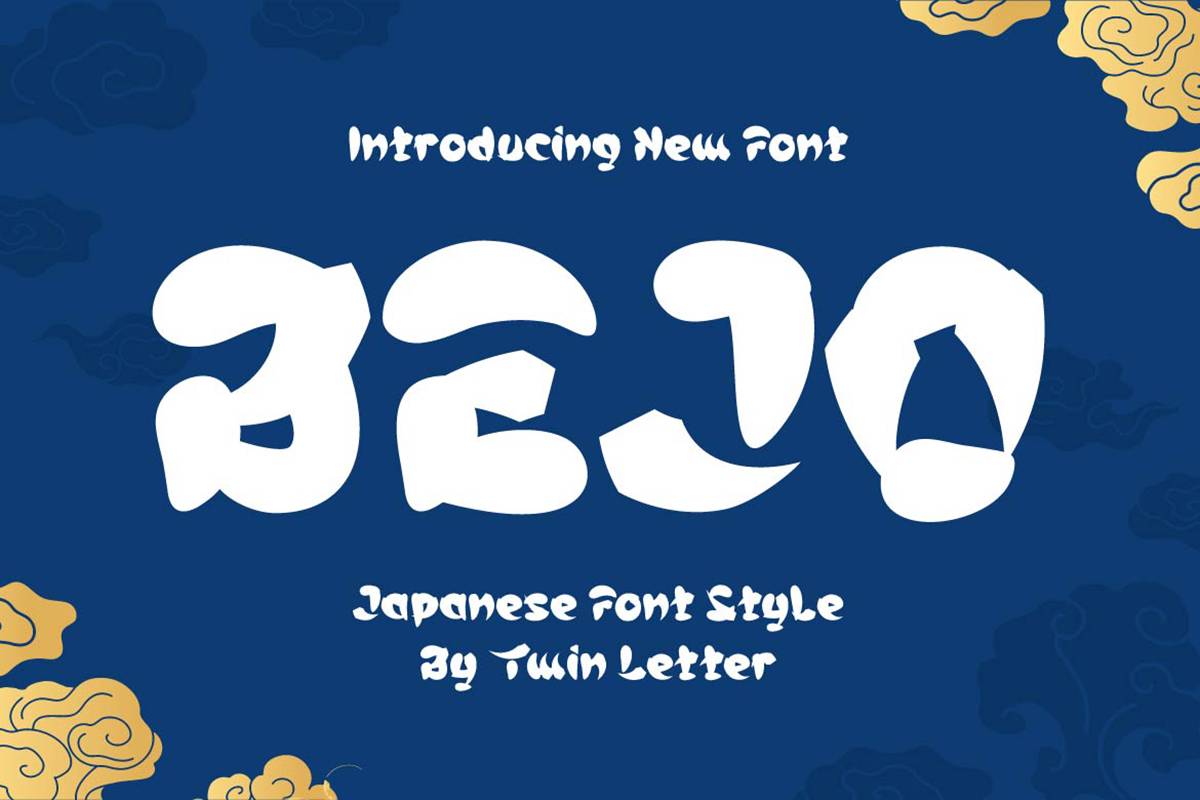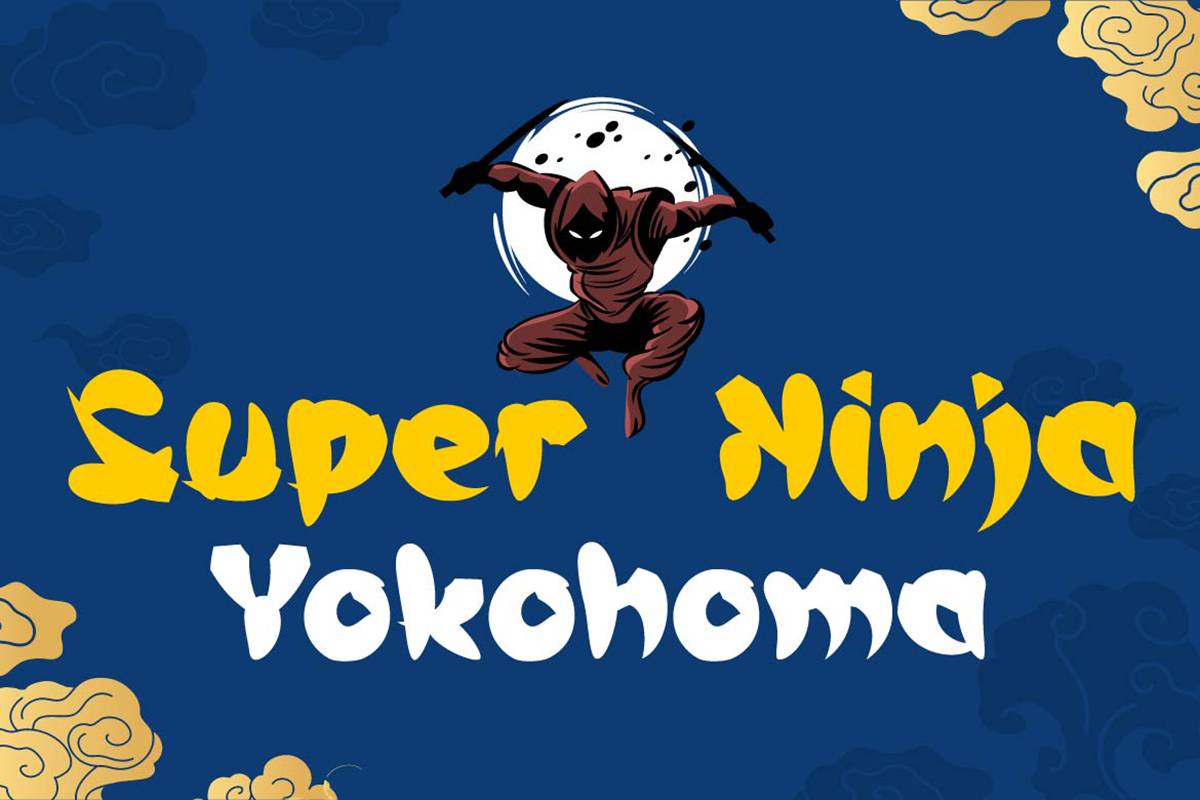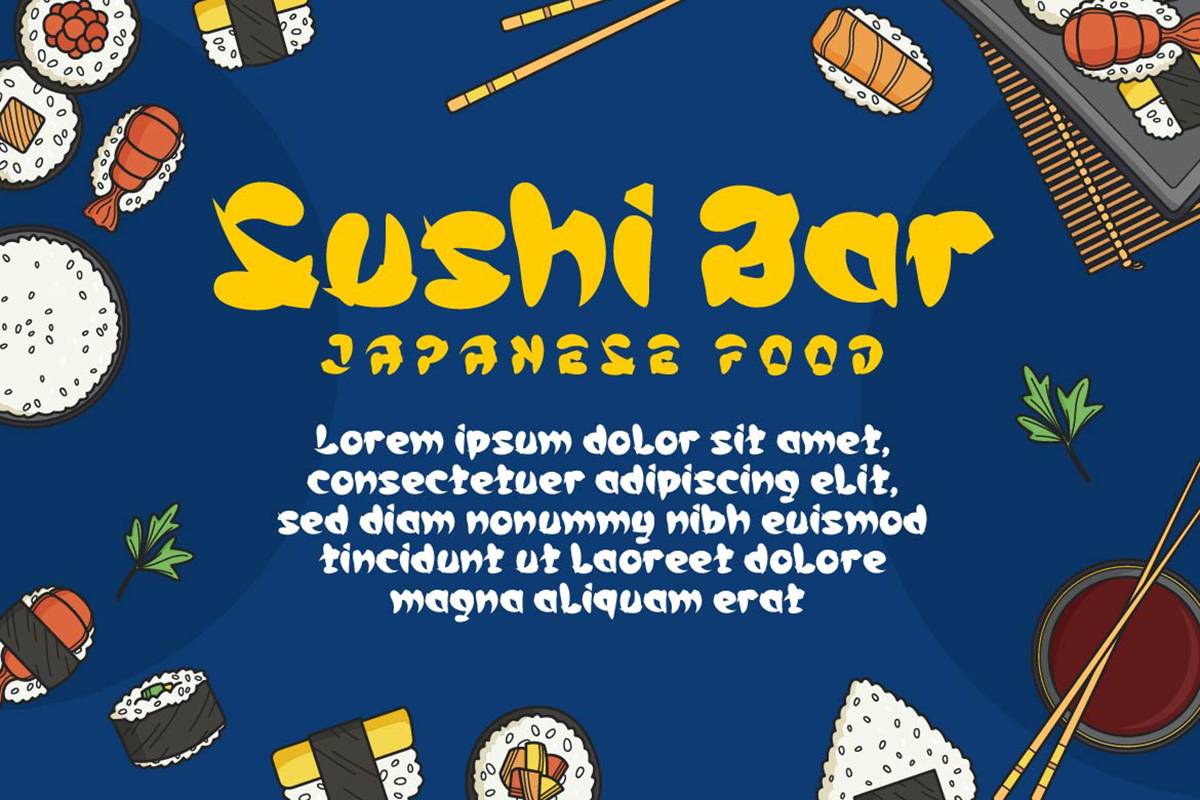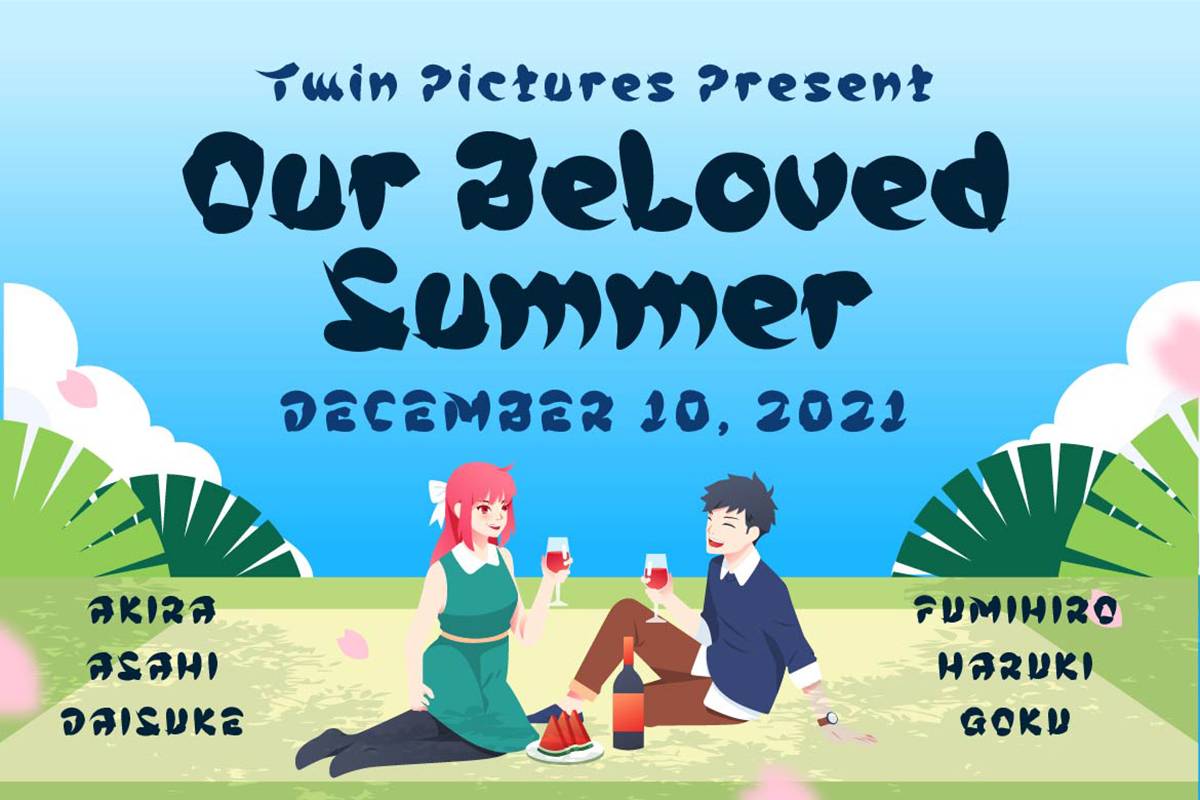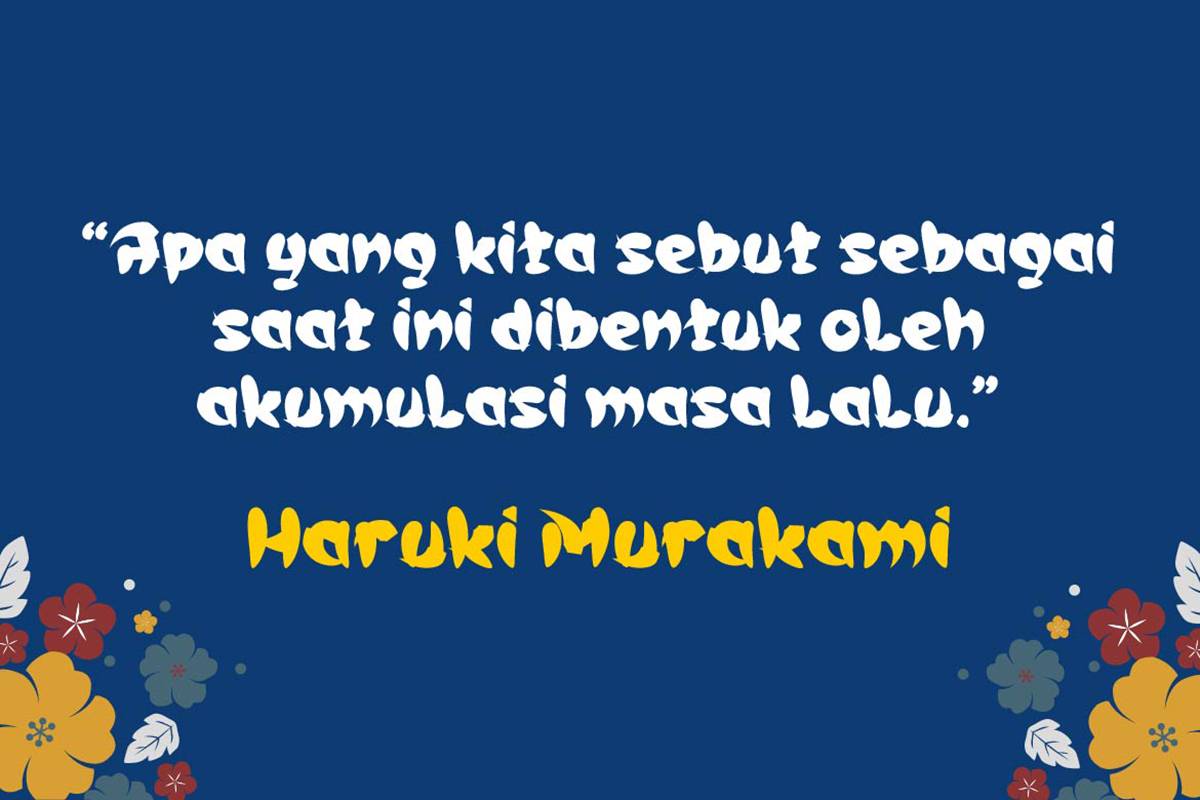
Bejo is a bold, playful display font with a chunky, hand-drawn feel that adds a lively, artistic touch to any design. Its thick strokes and unconventional letter shapes make it perfect for eye-catching headlines, posters, and creative branding where a fun and unique personality is desired. This font works especially well for projects that want to stand out with a quirky, informal vibe.
Bejo Font
About Bejo Font
| Font family | Bejo Font |
| Designer | Murozakul Akhsan |